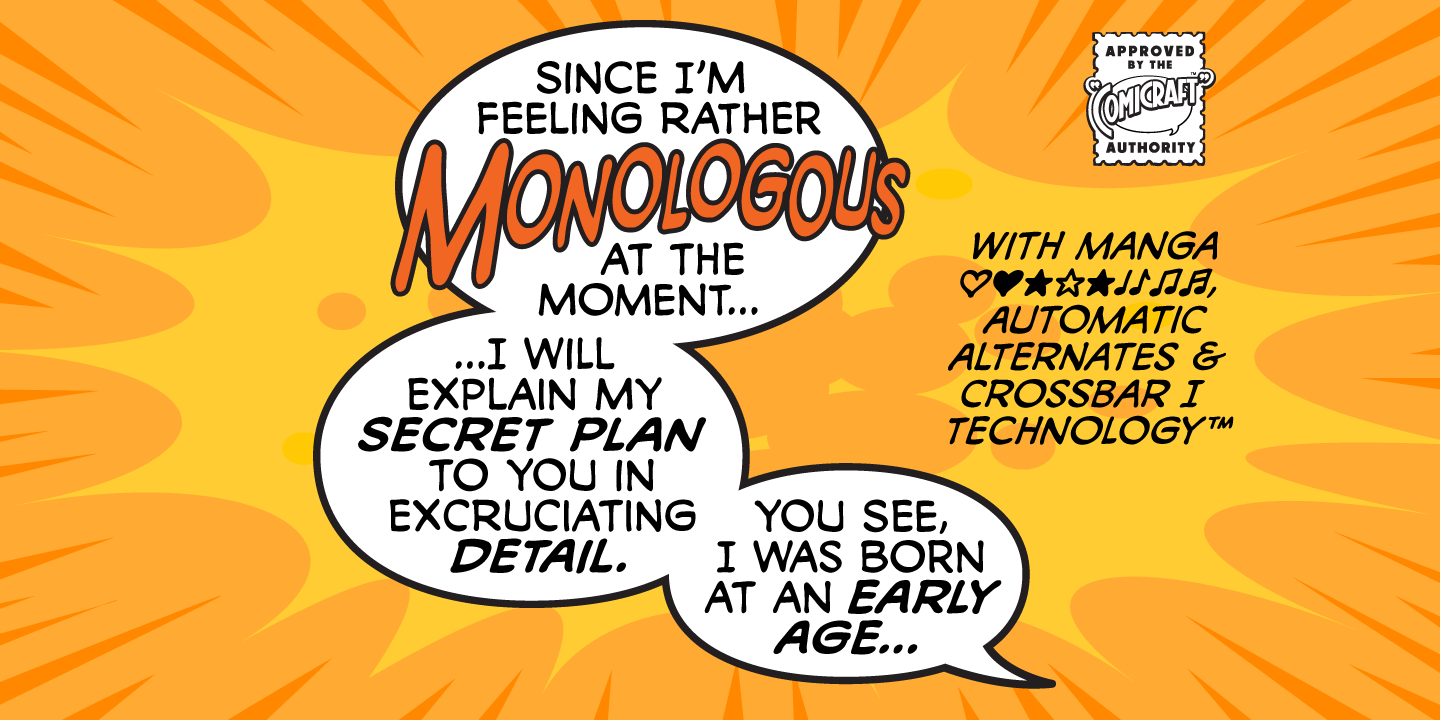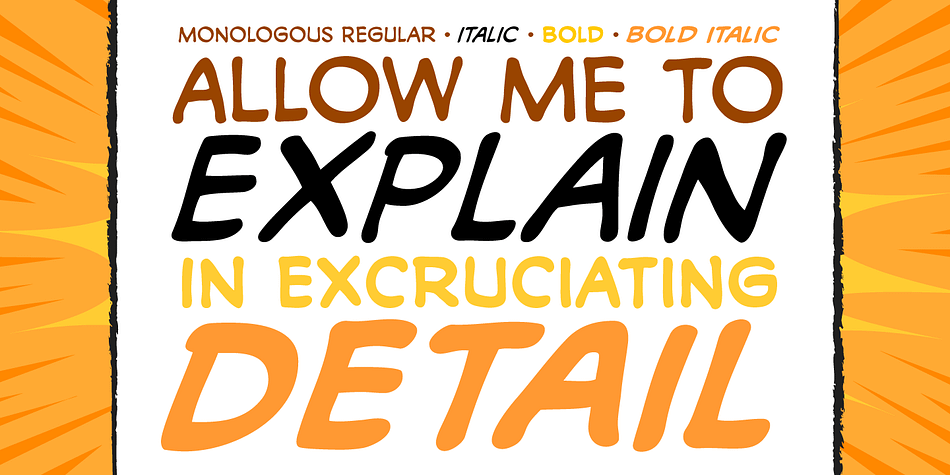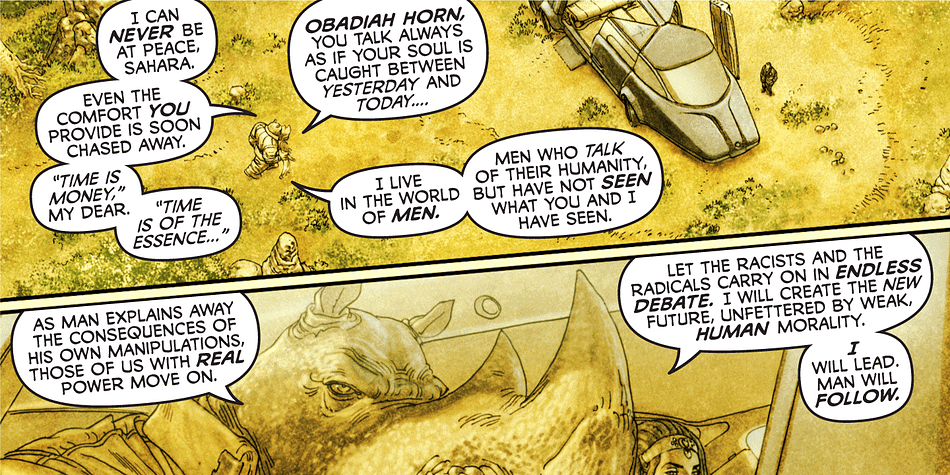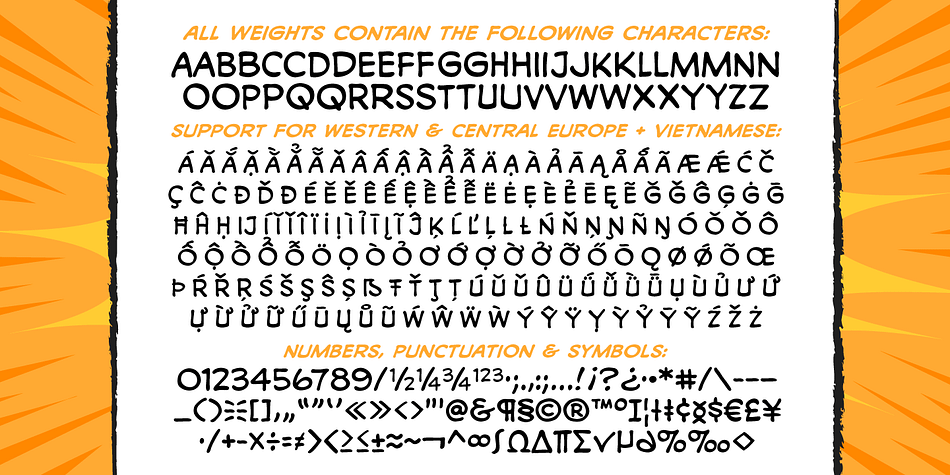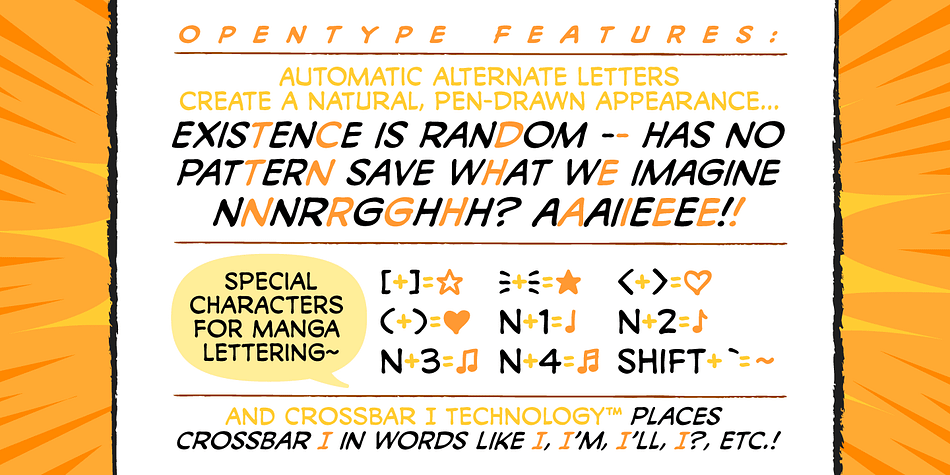
Designed by Dave Lanphear and John Roshell, Monologous is a comic and hand display font family. This typeface has three styles and was published by Comicraft.
From A to B, or not to Z: that is the question mark: whether ‘tis nobler in the mind to kern with the left and right arrows of outrageous keyboards, or to take arms against a sea of ’ thought bubbles,’ and by opposing, burst them? To sigh, with those little fireflies: to sleep; No more; and by sleep that is to say we end each line of dialogue with ‘zzzzz;’ The heart-shapes and the thousand drops of sweat popping off my forehead that sight of flesh is sure to produce, ‘tis a consummation devoutly to be letter’d.
To die with still at least five balloons of dialogue, to sleep; perchance to flashback to a scene in a previous issue while a picture of my head floats in the corner of each panel: ay, there’s the rub; ‘Nuff Said. (With a tip o’ the hat to Comicraftsman emeritus Dave Lanphear, upon whose pen lettering this font is based)
Three fonts (Regular, Italic & Bold Italic) with alternate uppercase characters. Includes Western European international characters.